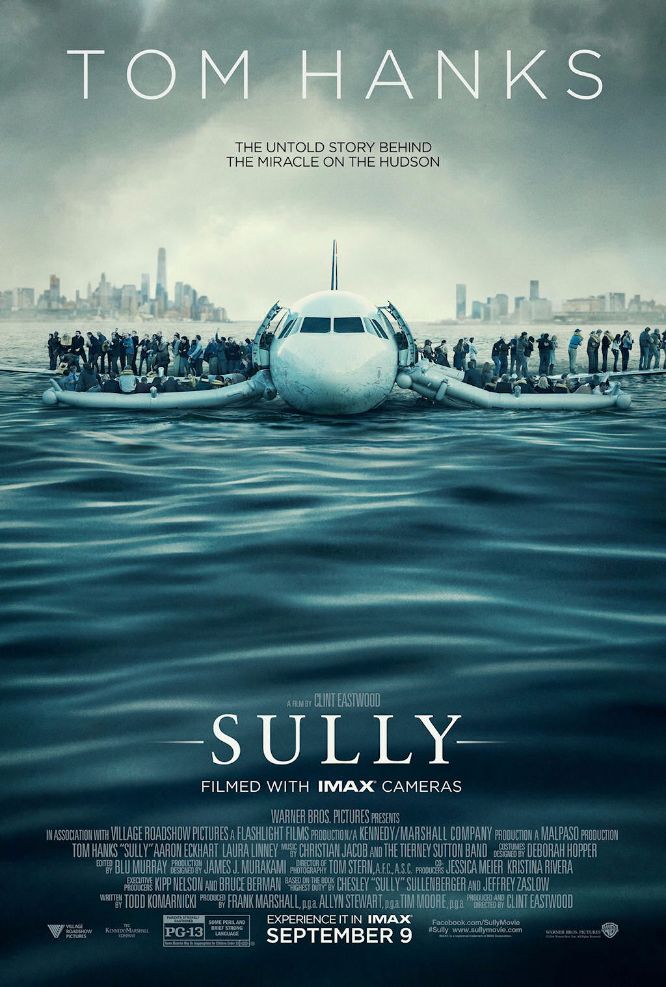
Sully (film) Font
DramaSully is a 2016 American biographical drama film directed by Clint Eastwood and starring Tom Hanks as Captain Chesley "Sully" Sullenberger, the pilot who safely landed a passenger plane on the Hudson River in 2009.
The film title in the poster is based on a font similar to Sabon Roman, a classic serif font designed by Jan Tschichold in the 60s. ''Tom Hanks" is set in Gotham Light by Tobias Frere-Jones.